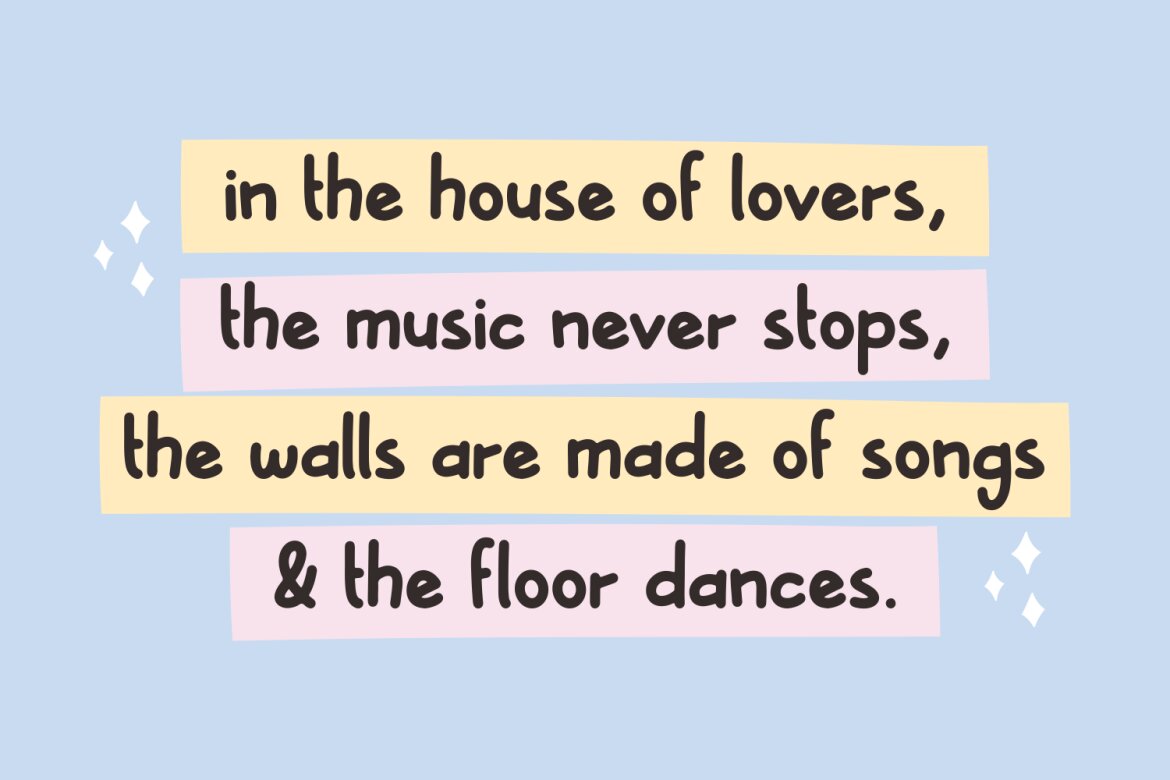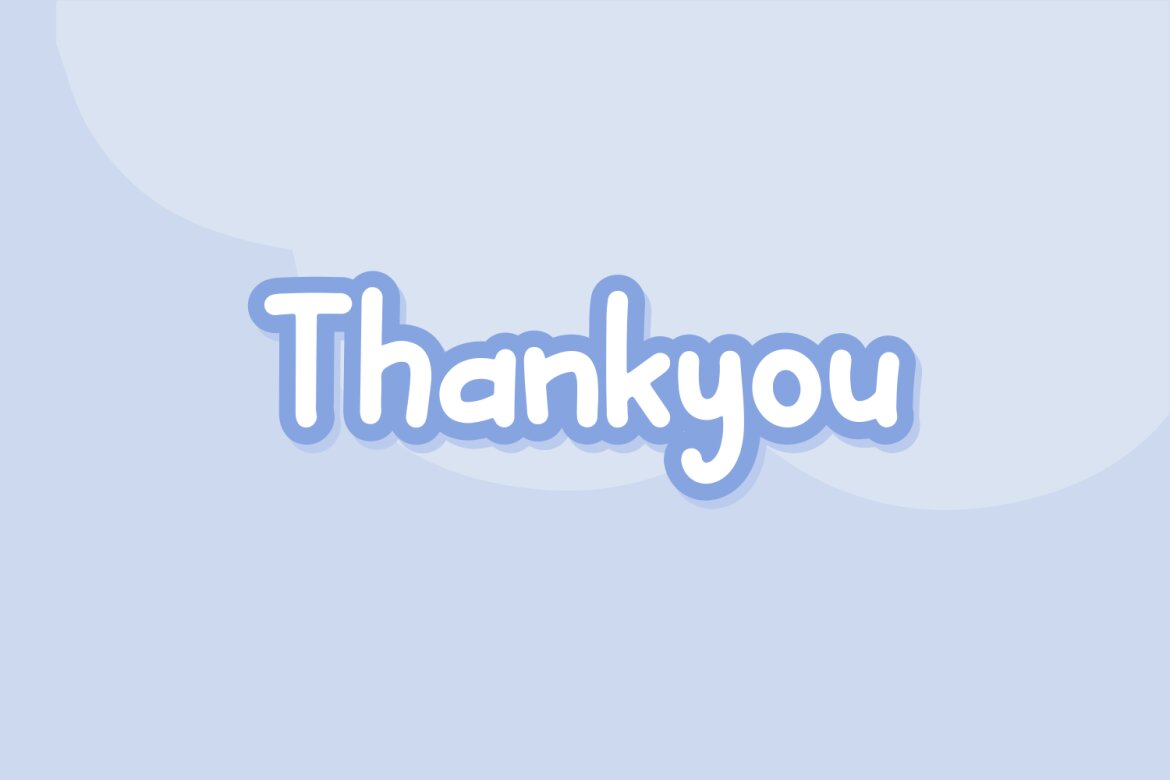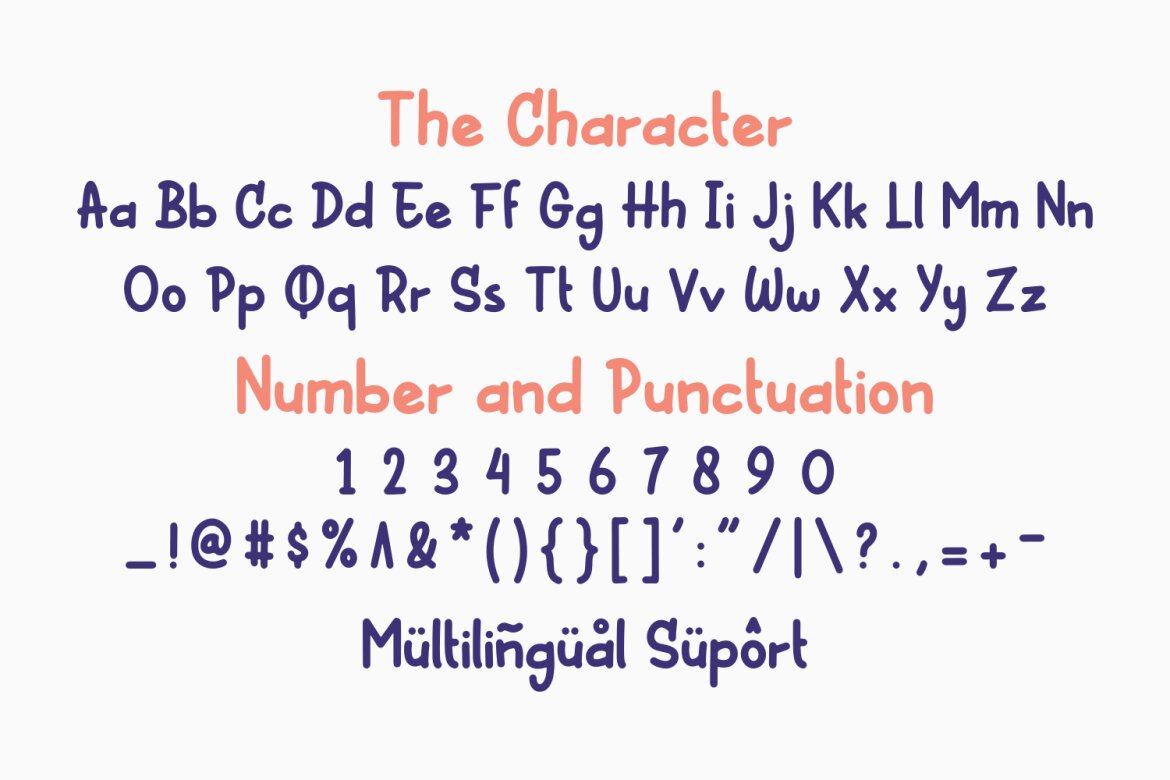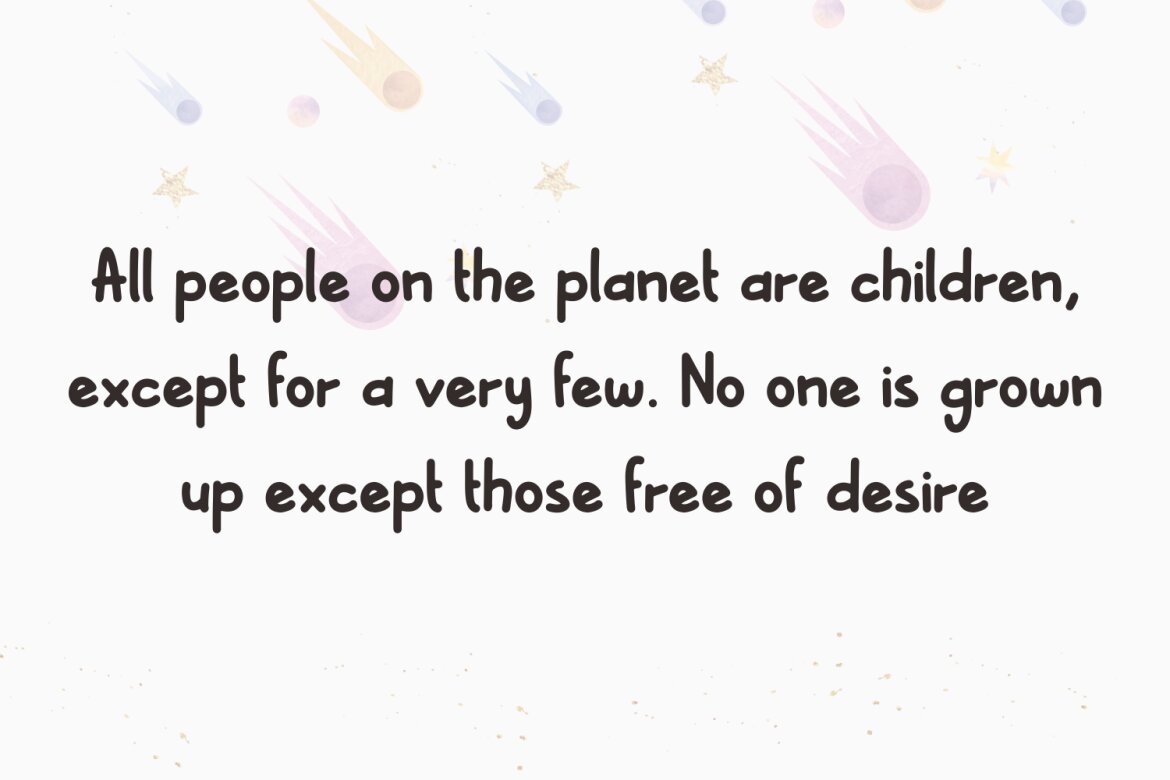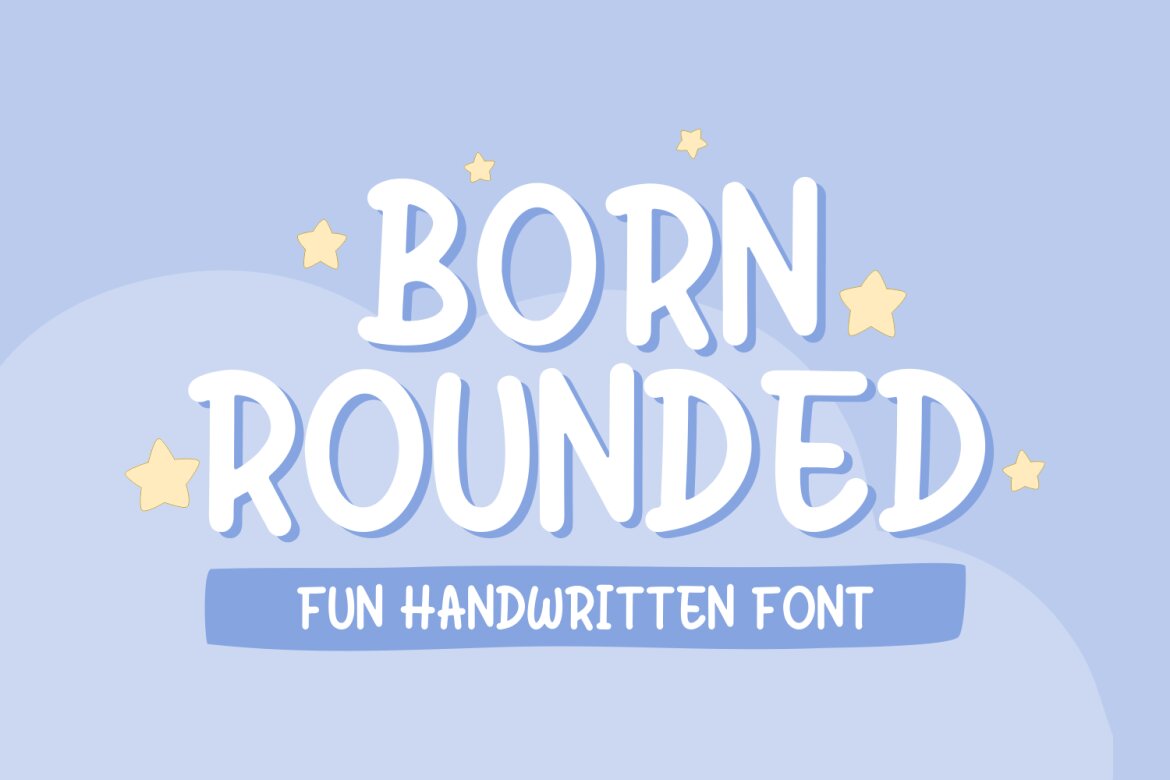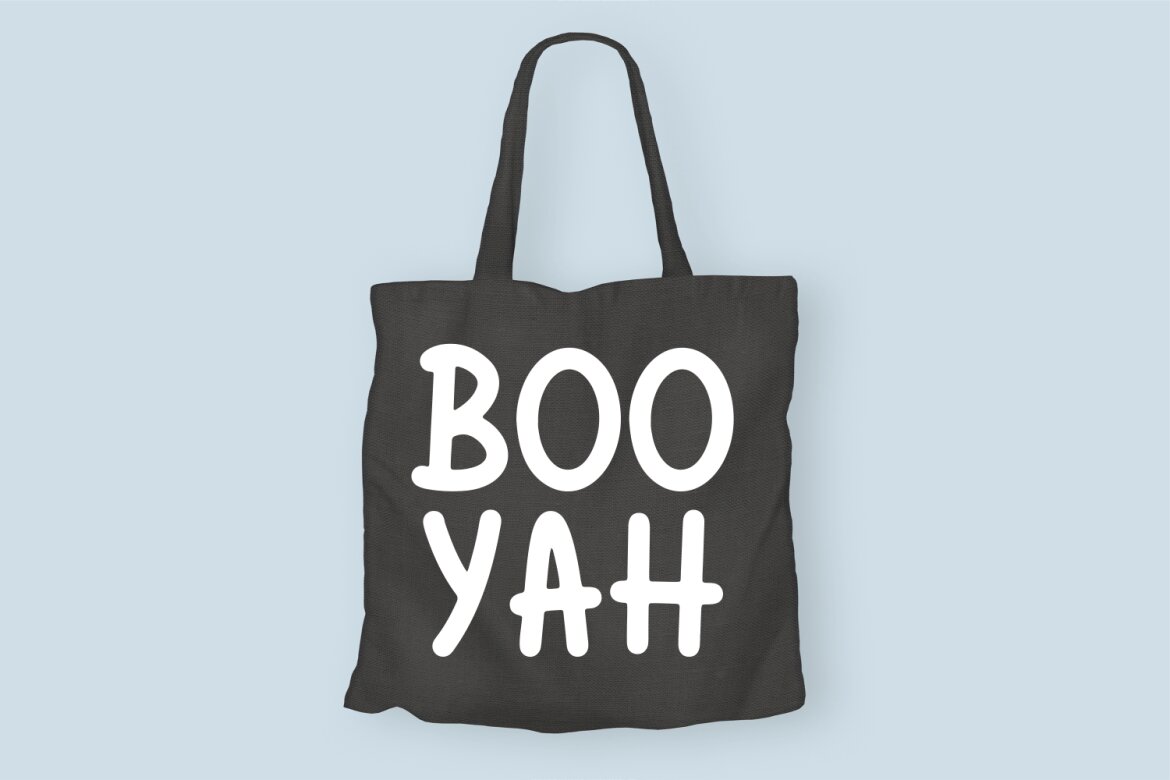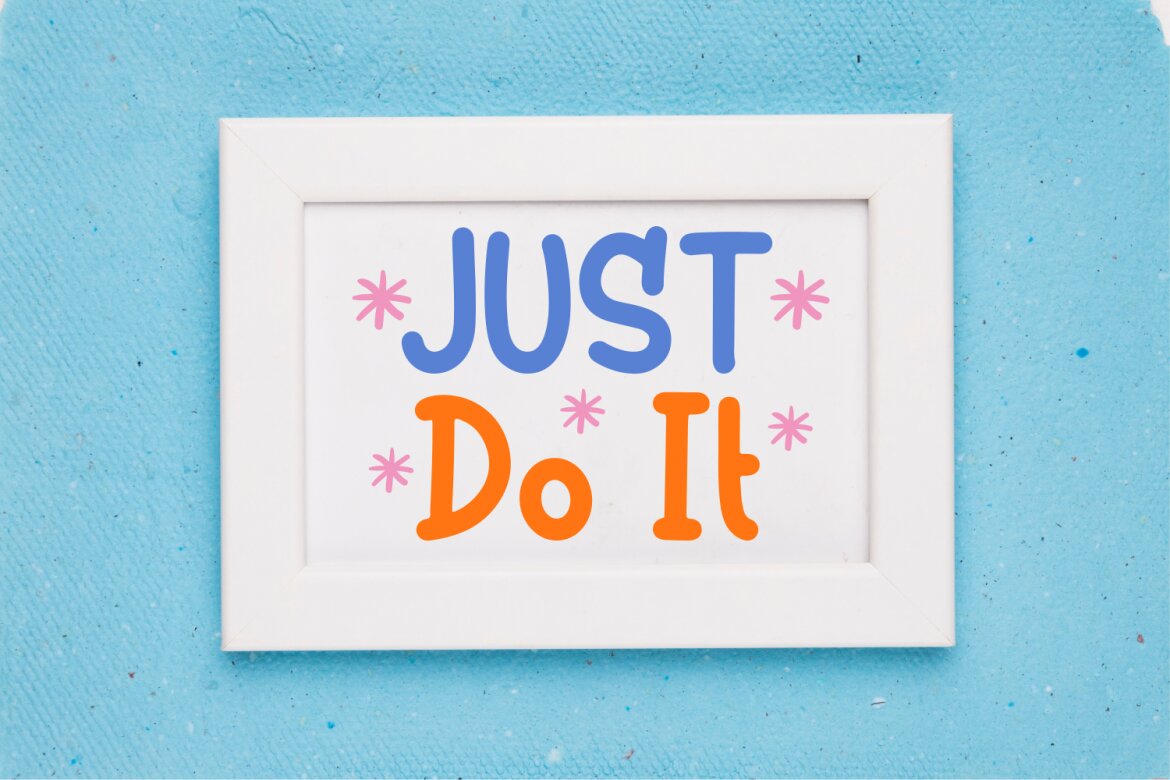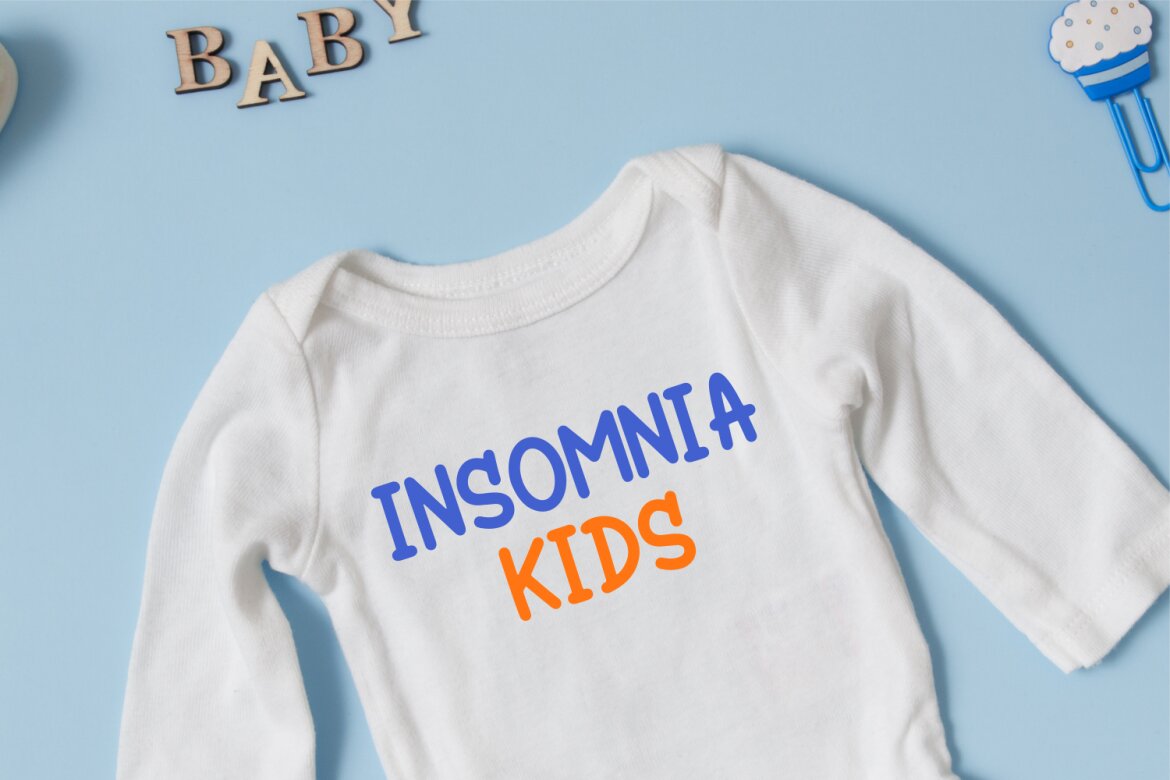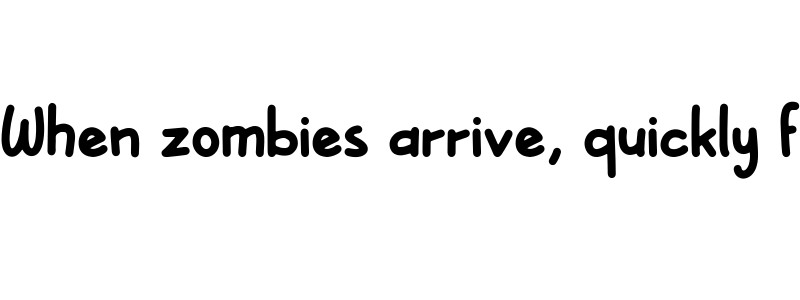
Born Rounded - FREE Demo Font
Born Rounded Demo
Born Rounded Font is script font inspired by modern and ligature characters. It is especially designed for luxury, elegant, feminine projects, Born Rounded Font is perfect for creating modern and chic designs such as logos, packaging, editorials and more.